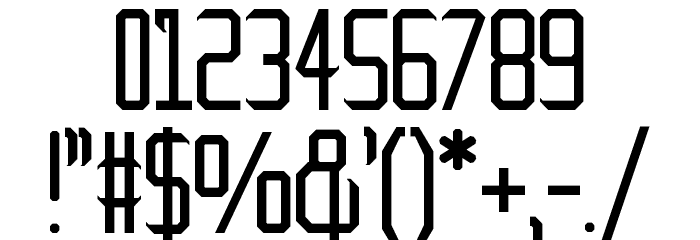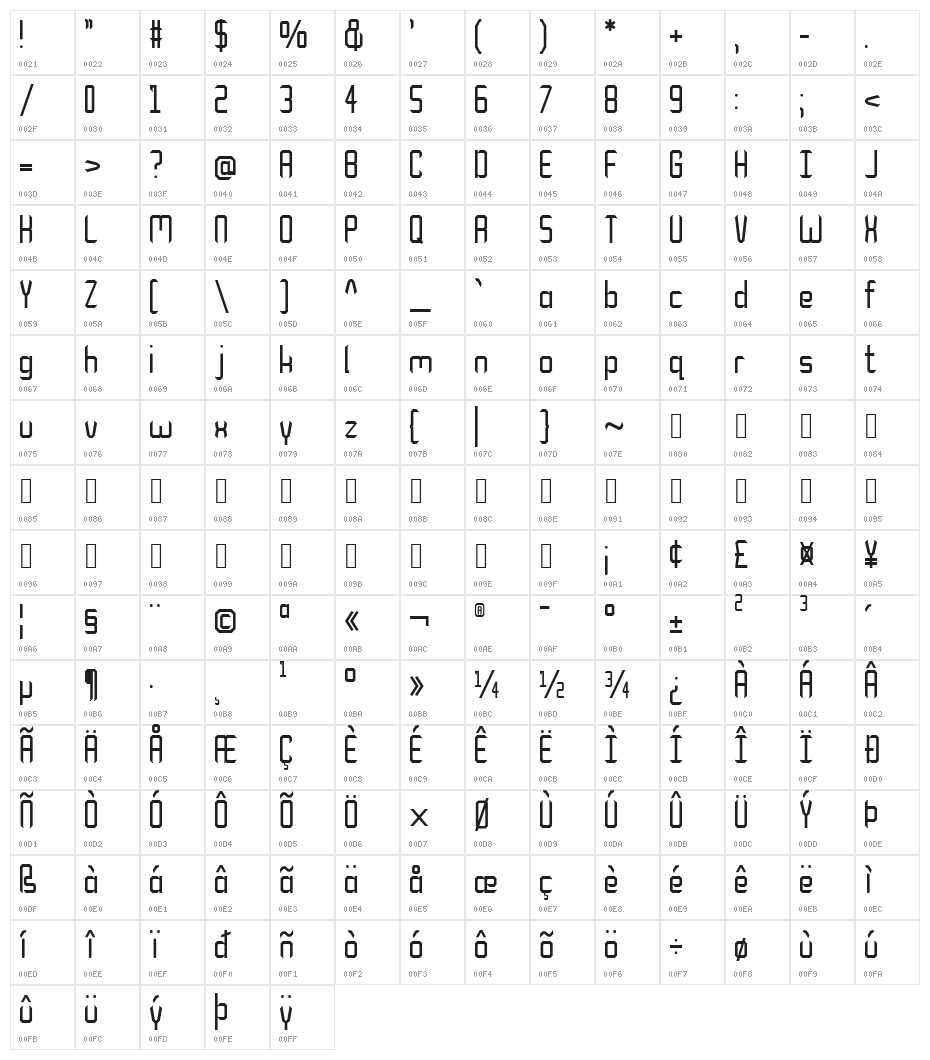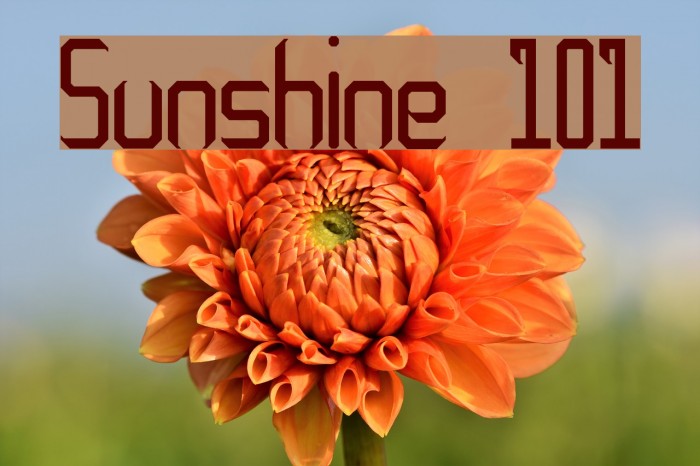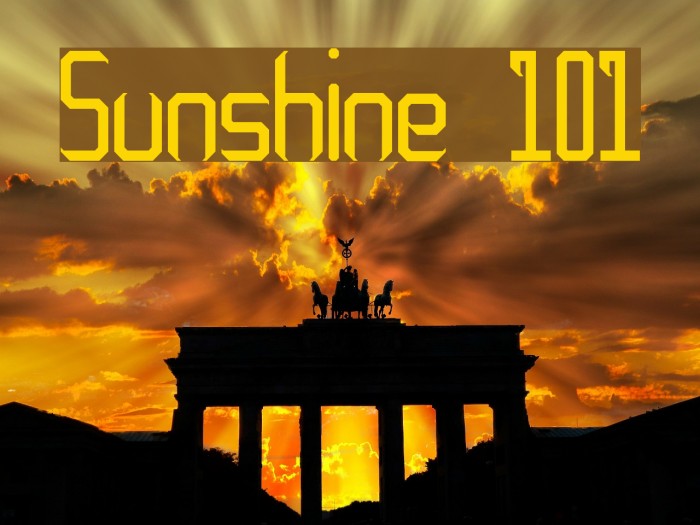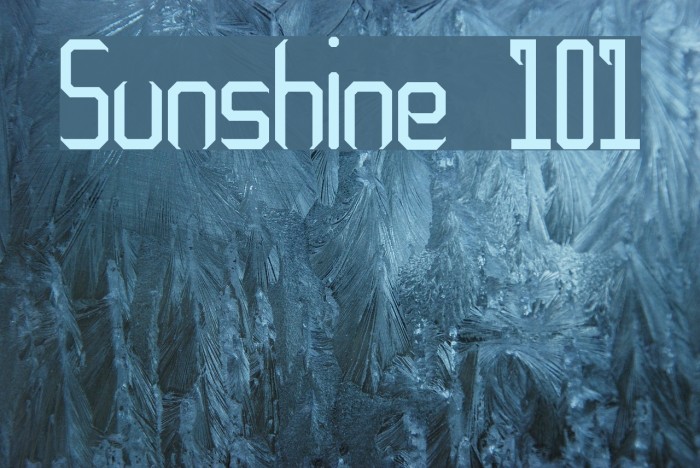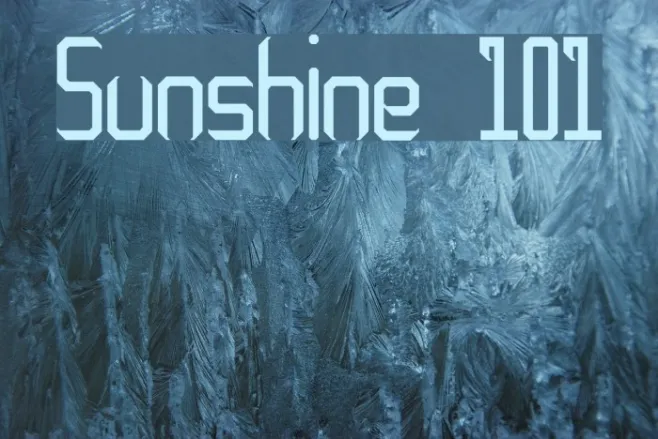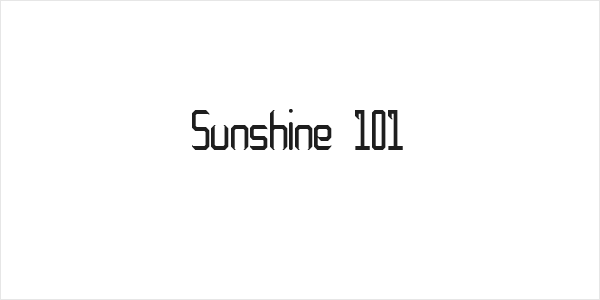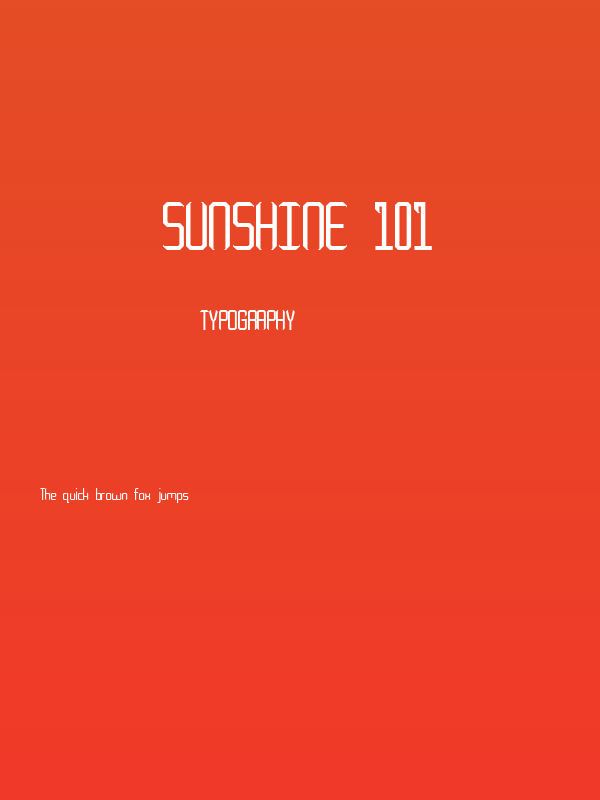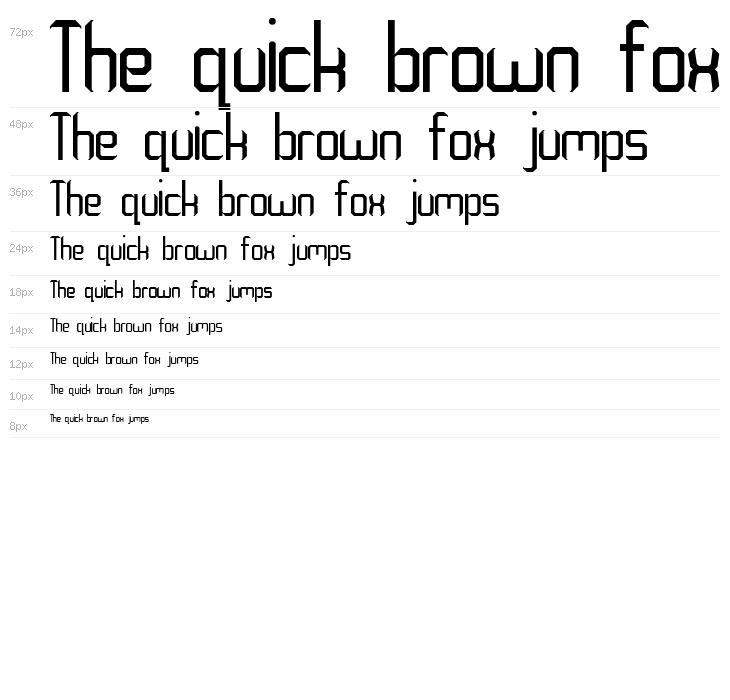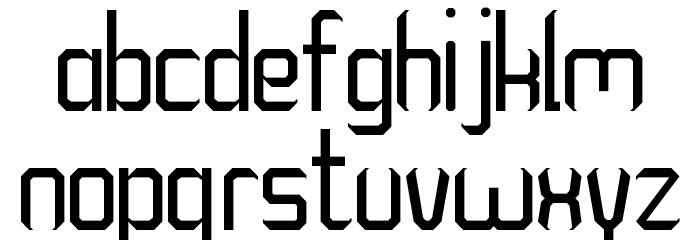
Sunshine 101 Font
Sunshine 101 Description
This font features a geometric and angular design, characterized by its sharp edges and clean lines. The uppercase and lowercase letters maintain a consistent height, creating a uniform appearance. The numerals and special characters follow the same angular style, contributing to a cohesive look. The font's modern and futuristic aesthetic makes it suitable for projects that require a bold and distinctive typeface. Its unique structure is ideal for capturing attention in headlines or logos, while still being legible enough for short body text. The consistent stroke width and lack of contrast give it a solid and stable appearance.
| Proposed Projects | Ideal for technology branding, sci-fi posters, modern logos, and digital interfaces. |